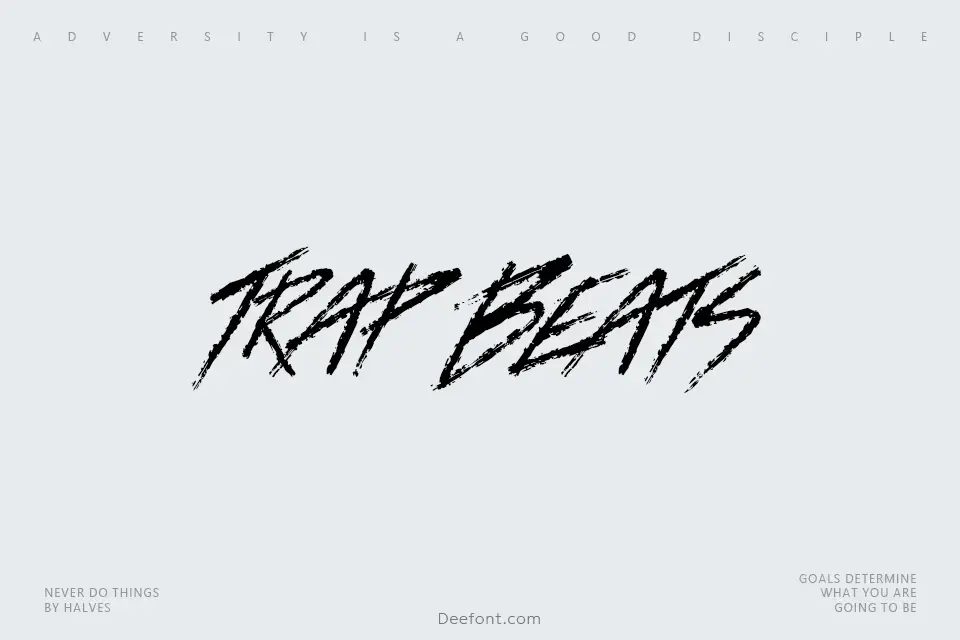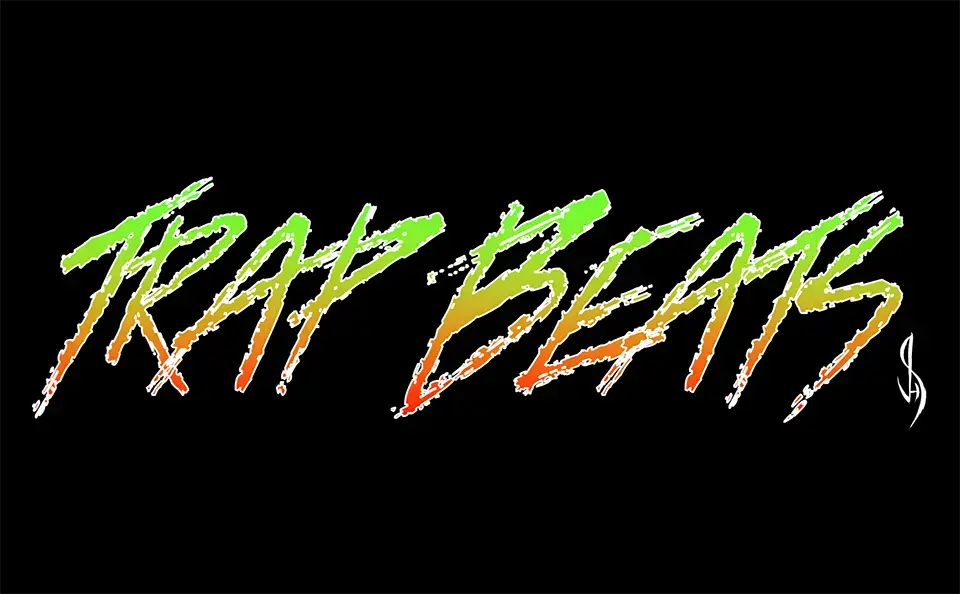
Trap Beats Font
Trap Beats is a distinctive handwritten script display typeface featuring textured brush strokes with a dynamic slant, creating an authentic raw aesthetic perfect for music industry applications. The font excels in album covers, streetwear branding, graffiti art, horror movie titles, and edgy poster designs. With 198 carefully crafted characters including expressive letterforms, it delivers visual impact for logos, headlines, and urban design projects seeking authentic hand-drawn authenticity with contemporary edge.